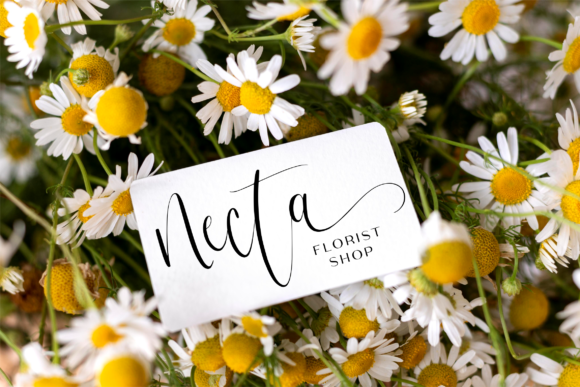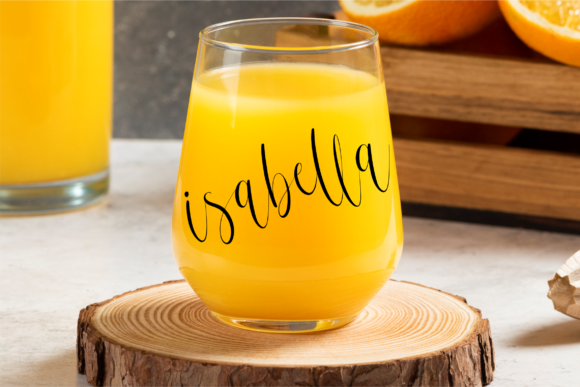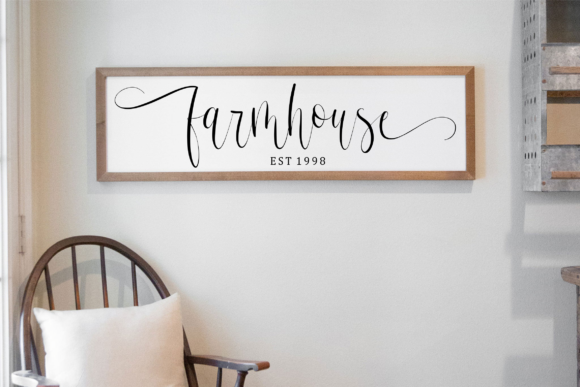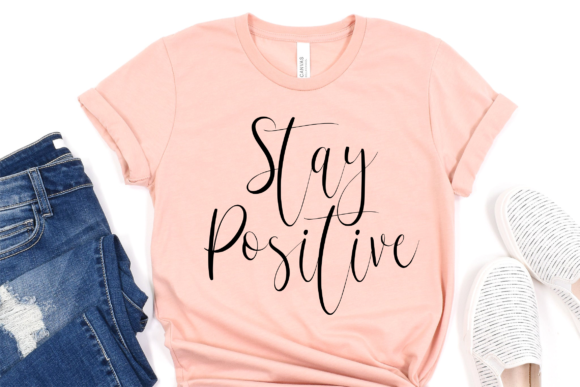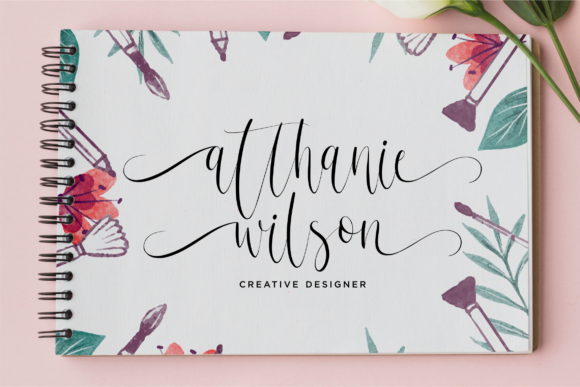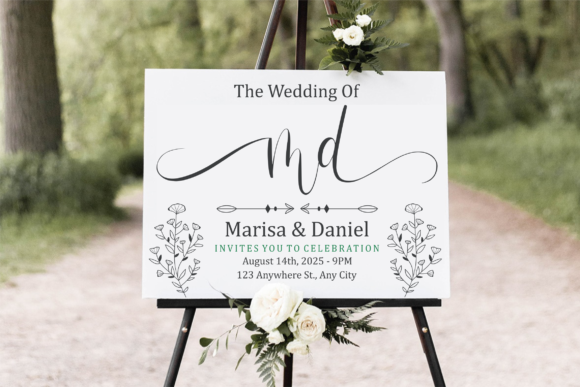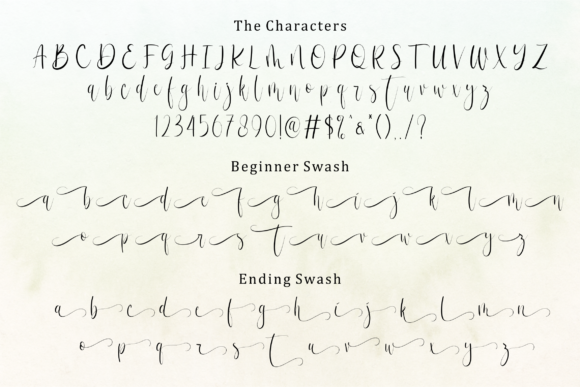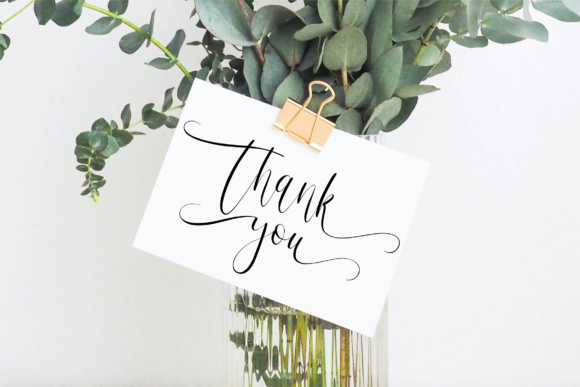
Synthilea Font
About Synthilea Font
Synthilea is a thin lettered and graceful script font. Fall for its delicate style and use it to create outstanding projects. This font is PUA encoded which means you can access all glyphs and swashes with ease!